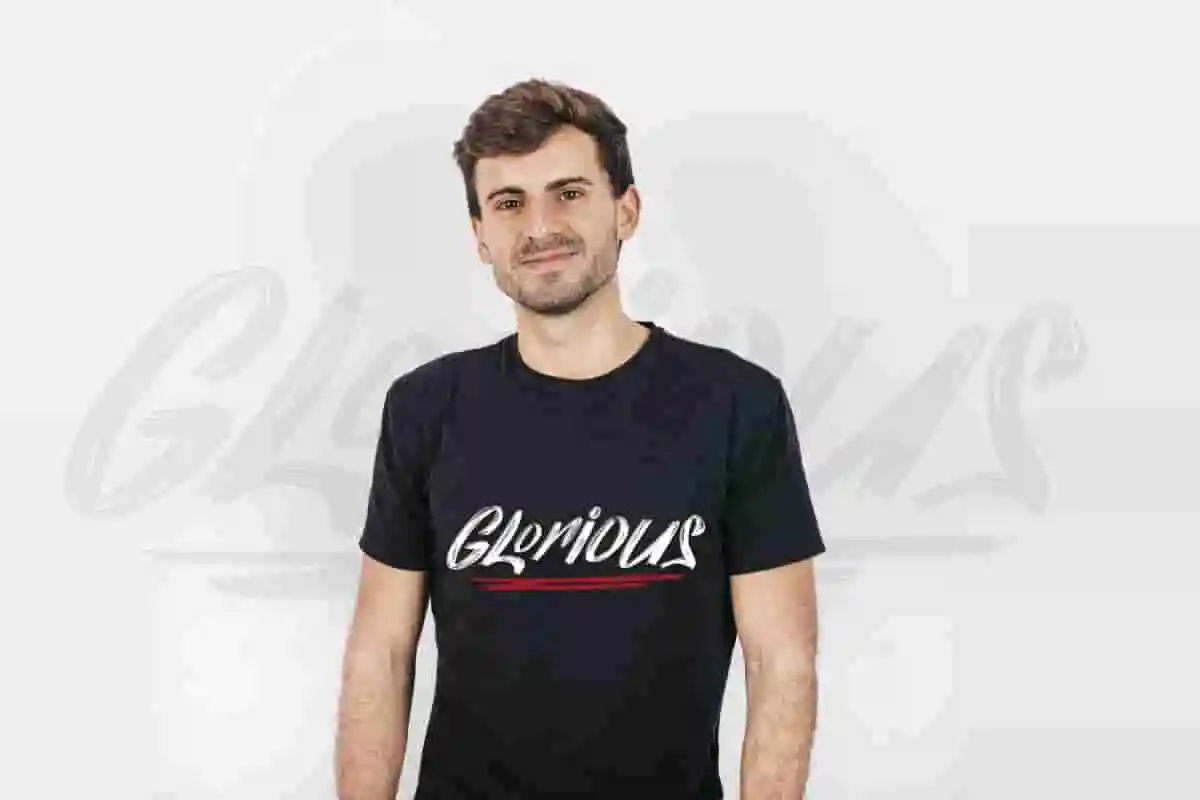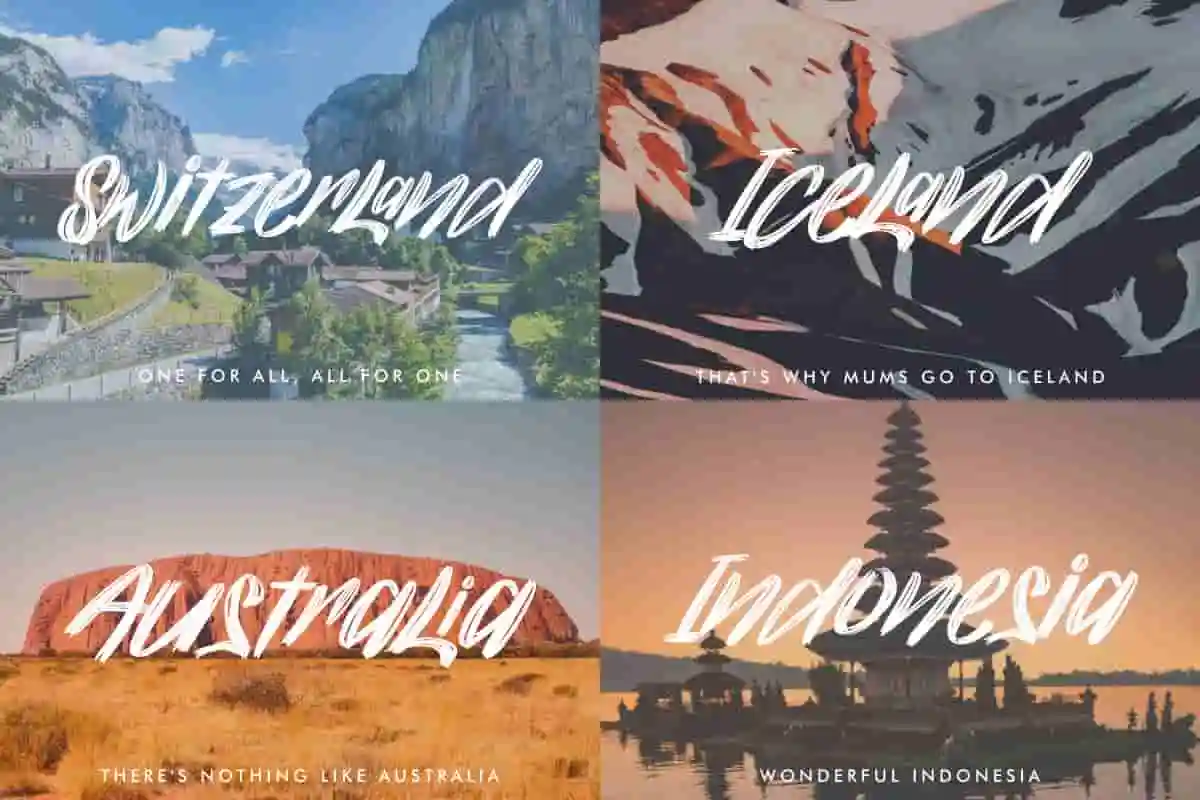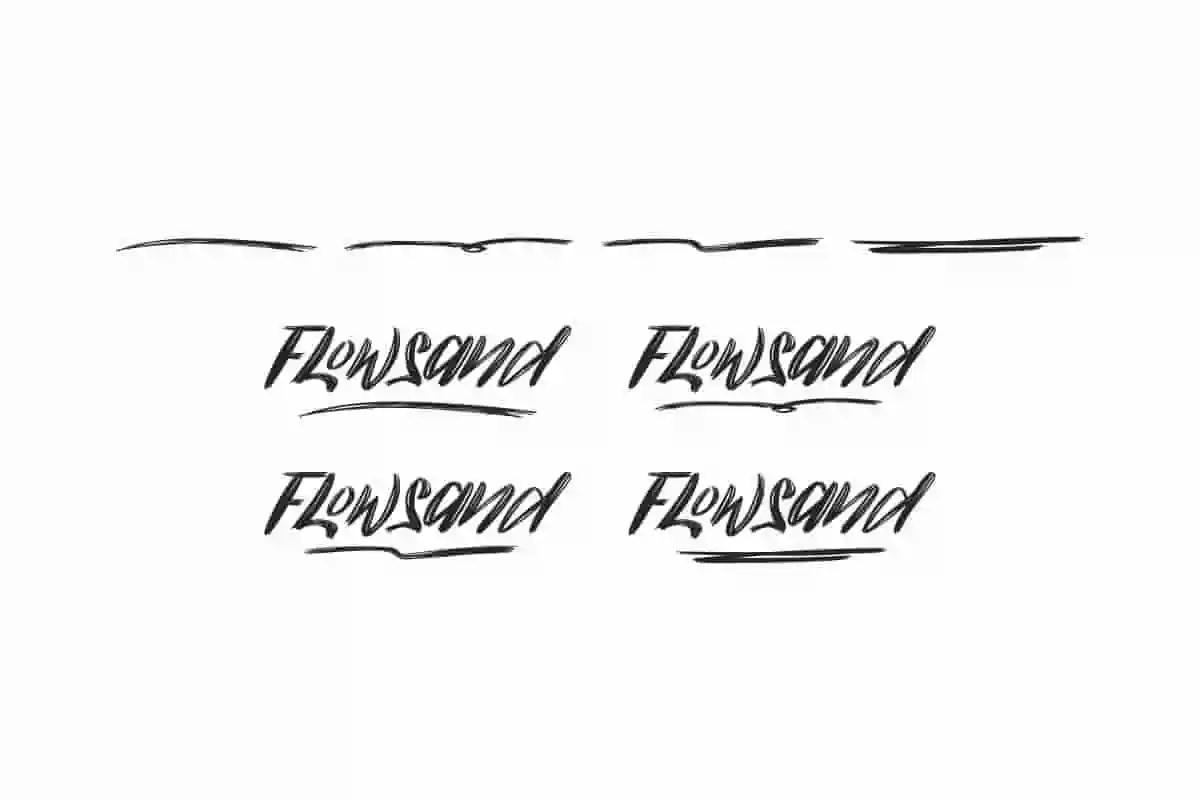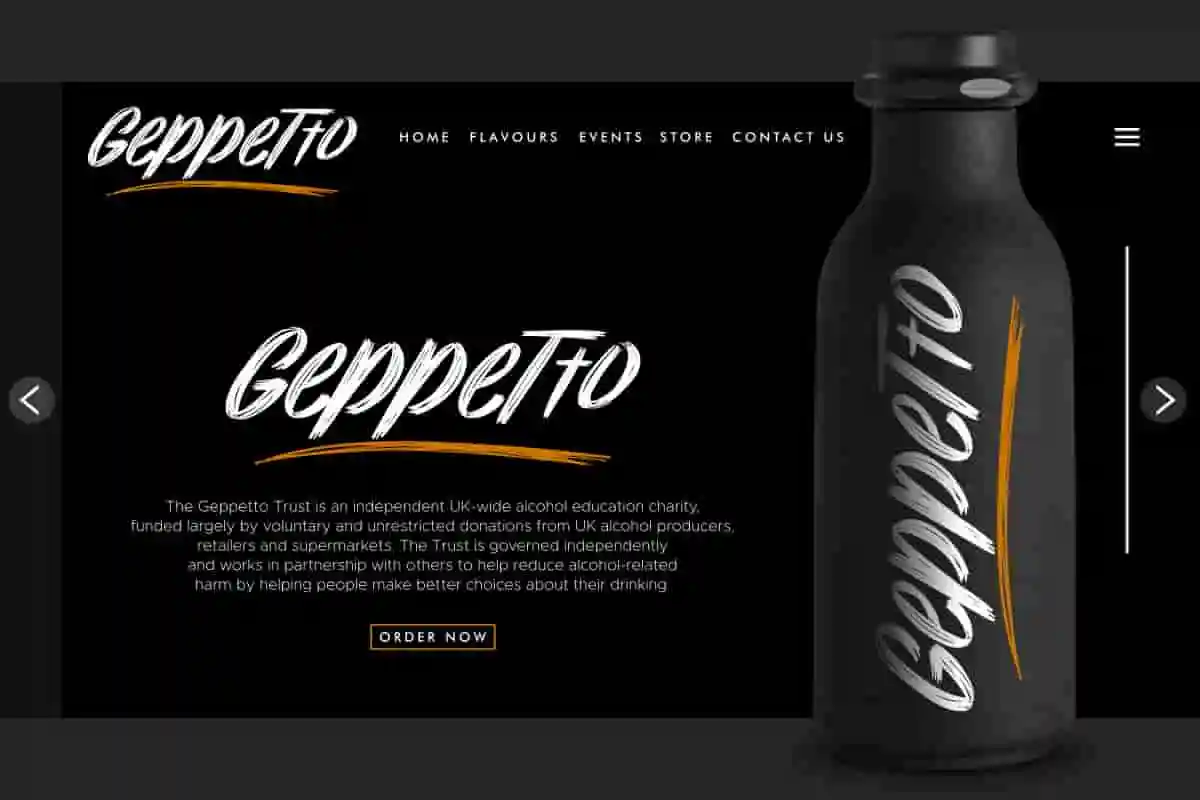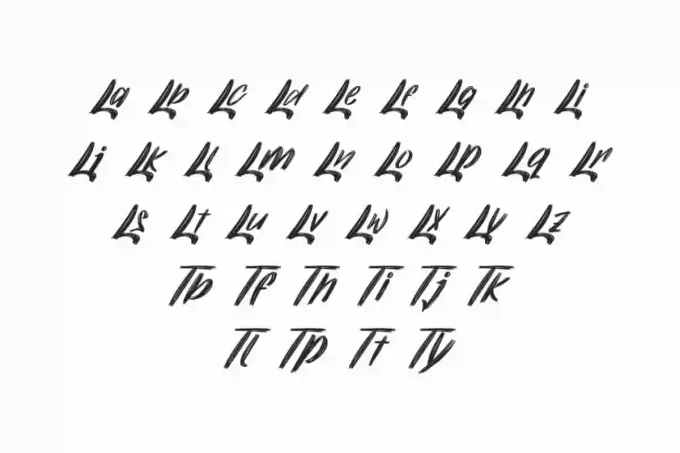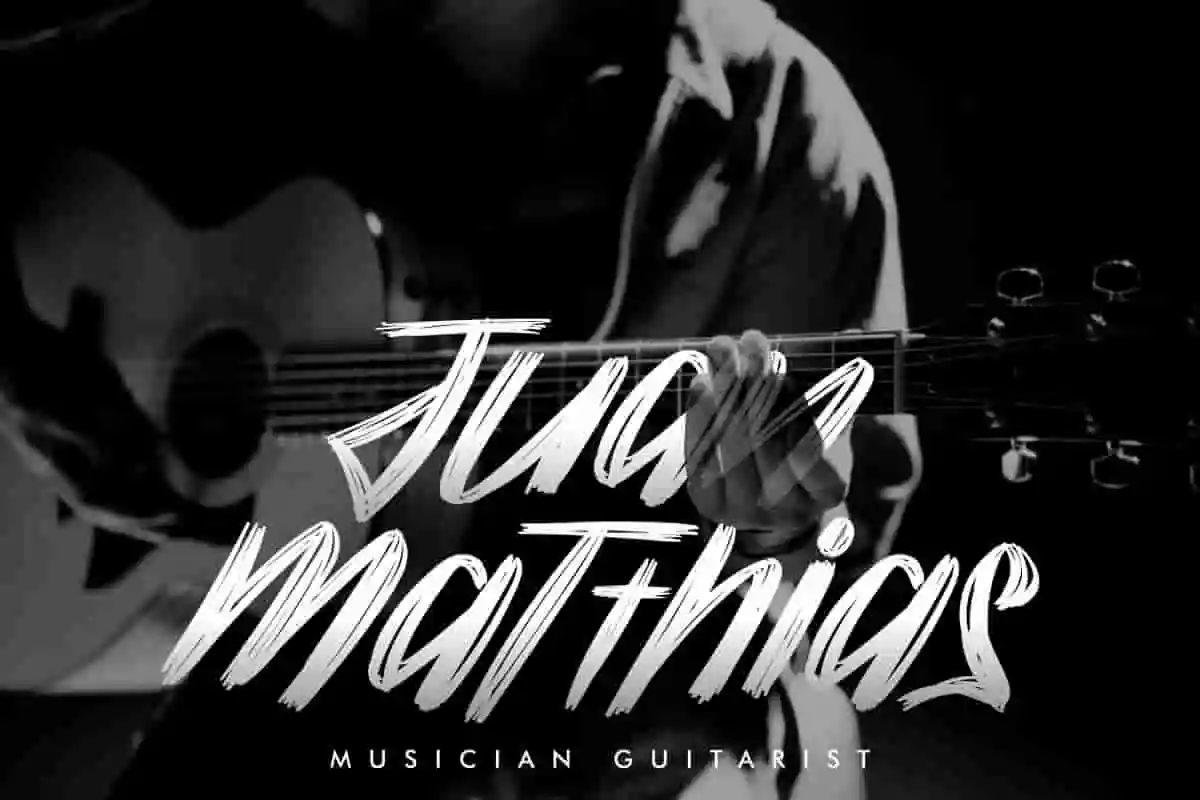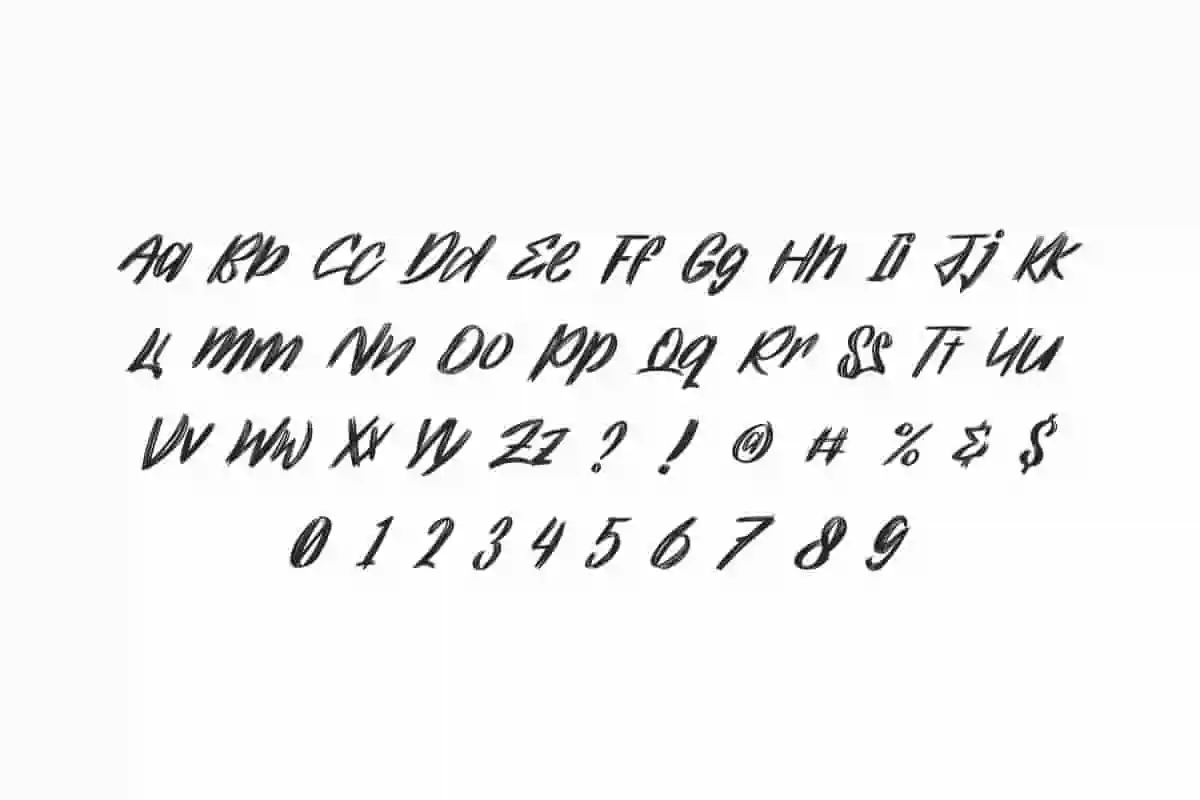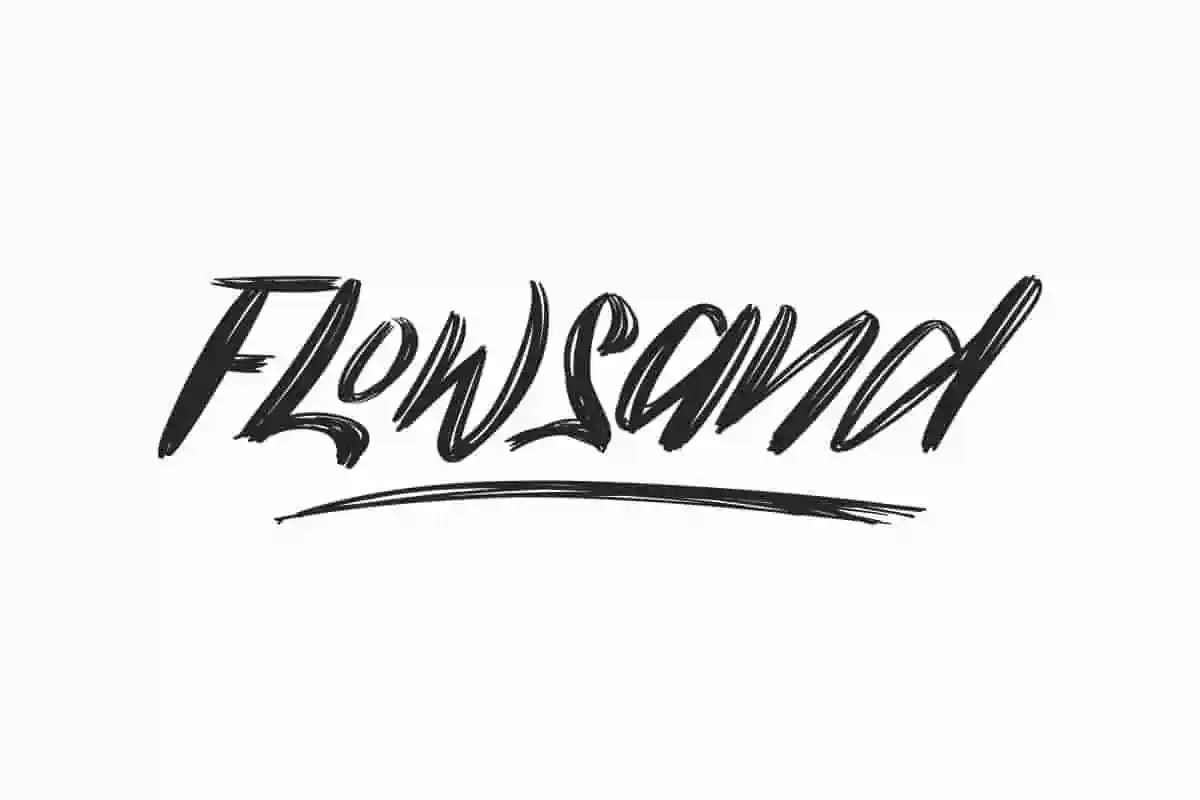
Flowsand Font is an original brush display font by NihStudio since 2020. It is a rough brush font, Made in Indonesia. Download Now
Flowsand Font is an original brush calligraphy font by NihStudio. Try the font by typing your own text below. Please note that the test font below is a demo file, so some specimens/ characters will not show up.
Flowsand is a textured brush hand lettering font. Originally made in 2020 by NihStudio Font Designer :Â Widiyanti and Suci. On the package you will get :
With its natural brush style, Flowsand delivers a dynamic and energetic feel to every word. Whether you’re working on a fashion label, a creative agency’s identity, or eye-catching headlines, this font helps your message stand out. Making it perfect for branding.
Handcrafted here in our Studio , Indonesia. Flowsand will be great for any projects (require extended license) including : branding, logo, stationery, business card, signage, flyer, brochure etc.
High-resolution brush texture
Uppercase & lowercase letters
Punctuation & multilingual support
The theme style of the Flowsand is unique, mysterious, dark, horror, movie, sporty, gamer, motorcycle brush style. The font will be match for this typeface: events, artist, musician, cafe, coffee, promotion, etc
This font has a stunning characters set, perfectly managed with well spaced and kerning. Accessible in the Adobe Illustrator, Adobe Photoshop, Adobe InDesign, even work on Microsoft Word. It’s also PUA Encoded Characters – Fully accessible without additional design software.